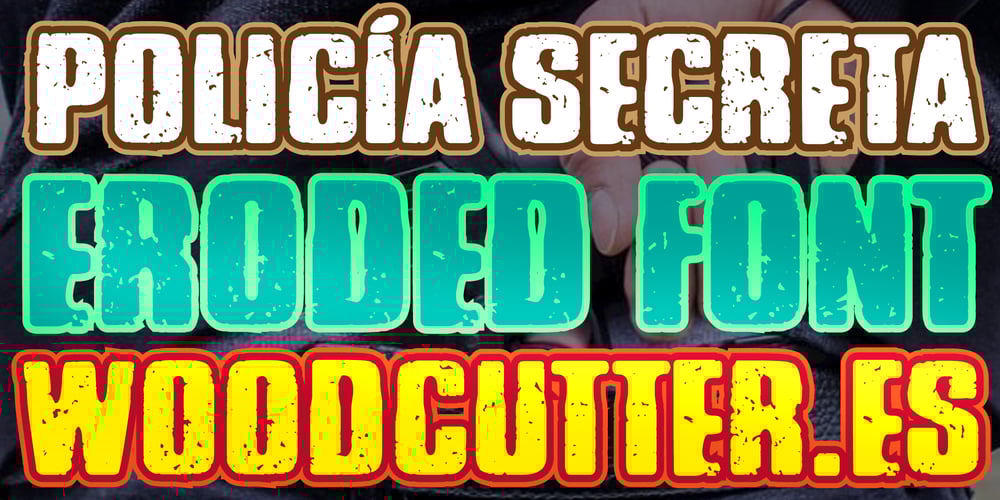
Policia Secreta Font Family was designed by Jordi Manero and published by Woodcutter. Policia Secreta contains 1 styles and family package options. “Policía Secreta” is an all-uppercase, solid, and weathered font that evokes the aesthetics of classic typefaces with a modern twist. With included accents, this font has a strong and firm character, making it ideal for projects that aim to convey authority and mystery. Its aged design suggests frequent use and durability, making it perfect for suspense movie titles, detective novels, or any design that needs a touch of classic yet updated drama.